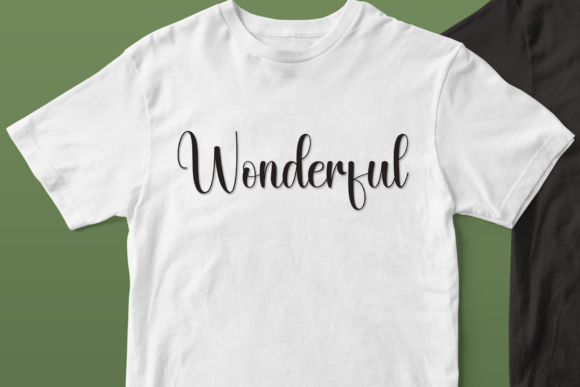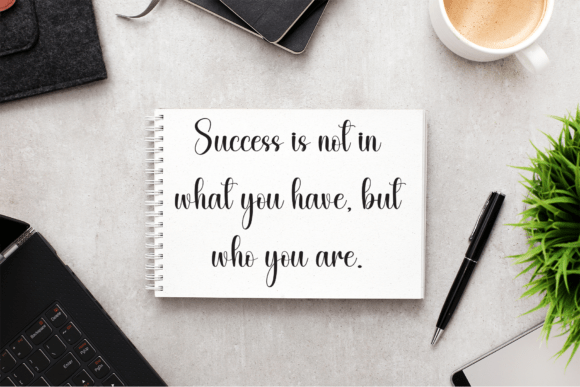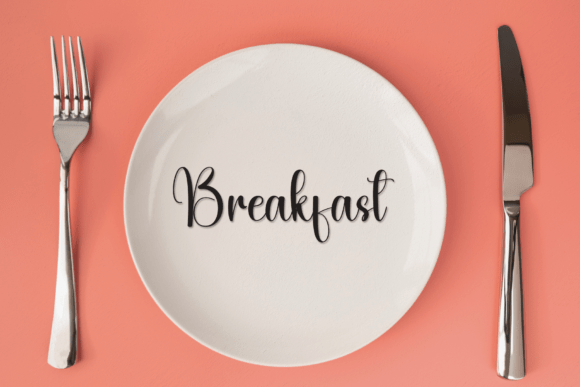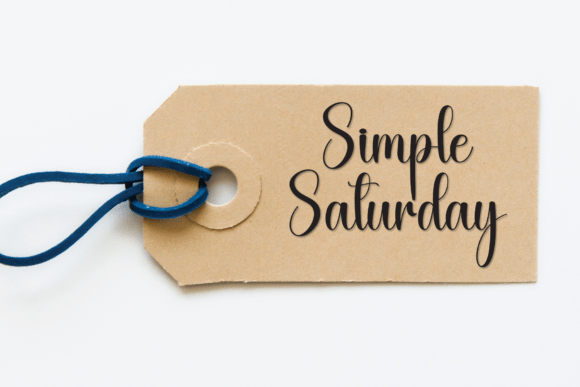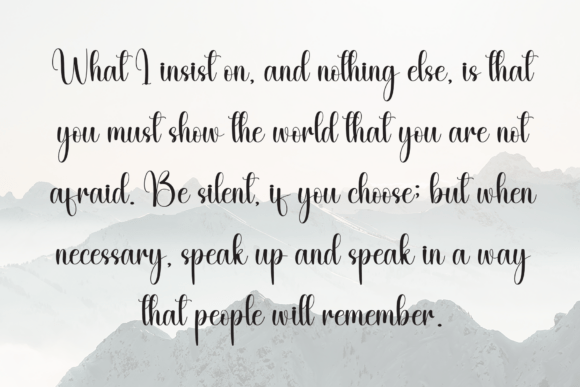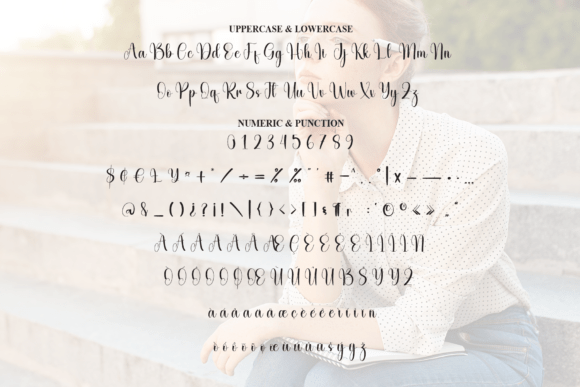
Dreaming Font: The Charming Handwritten Script Font to Add Joy to Your Designs
Are you tired of using the same old fonts in your creative projects? Do you want to add a touch of personality and whimsy to your designs? Look no further than the Dreaming Font, a charming and delightful handwritten script font that is sure to bring a spark of joy to your work. With its smooth combination of sweetness and friendliness, this font is perfect for designers and crafters who want to add a playful and lighthearted touch to their projects.
The Personality of Dreaming Font
The Dreaming Font is more than just a font – it’s a personality. Its vibrant and lively energy makes it an ideal choice for crafting exquisite wedding invitations, whimsical cards, and other creative projects that require a touch of magic and personality. Whether you’re a designer, crafter, or DIY enthusiast, this font is sure to inspire you to create something truly special.
Perfect for Wedding Invitations and Whimsical Cards
One of the standout features of the Dreaming Font is its suitability for wedding invitations and whimsical cards. Its elegant and cursive strokes make it perfect for formal and informal wedding invitations, while its playful and lighthearted energy makes it ideal for creating whimsical cards for special occasions. Whether you’re a stationery designer, a wedding planner, or a DIY bride, this font is sure to make your wedding invitations and cards stand out.
Adding a Touch of Magic to Your Designs
The Dreaming Font is not just a font – it’s a design statement. Its unique and playful personality makes it perfect for adding a touch of magic to your designs. Whether you’re creating a logo, a poster, or a social media graphic, this font is sure to add a spark of joy and whimsy to your work. And with its easy-to-use and versatile design, you can use it for a wide range of creative projects.
Why Choose Dreaming Font?
So why choose the Dreaming Font over other fonts? Here are just a few reasons:
- Unique and playful personality: The Dreaming Font has a unique and playful personality that is sure to add a touch of magic to your designs.
- Elegant and cursive strokes: Its elegant and cursive strokes make it perfect for formal and informal wedding invitations and cards.
- Vibrant and lively energy: Its vibrant and lively energy makes it ideal for crafting exquisite wedding invitations, whimsical cards, and other creative projects.
- Easy-to-use and versatile design: The Dreaming Font has an easy-to-use and versatile design that makes it perfect for a wide range of creative projects.
How to Use Dreaming Font
Using the Dreaming Font is easy. Here are just a few tips:
- Pair it with other fonts: Pair the Dreaming Font with other fonts to create a unique and eye-catching design.
- Use it for headings and titles: Use the Dreaming Font for headings and titles to add a touch of personality and whimsy to your designs.
- Experiment with different colors: Experiment with different colors to find the perfect combination for your design.
In conclusion, the Dreaming Font is a charming and delightful handwritten script font that is sure to add a spark of joy to your creative projects. With its smooth combination of sweetness and friendliness, elegant and cursive strokes, and vibrant and lively energy, this font is perfect for designers and crafters who want to add a playful and lighthearted touch to their designs. So why not give it a try and see the magic for yourself?